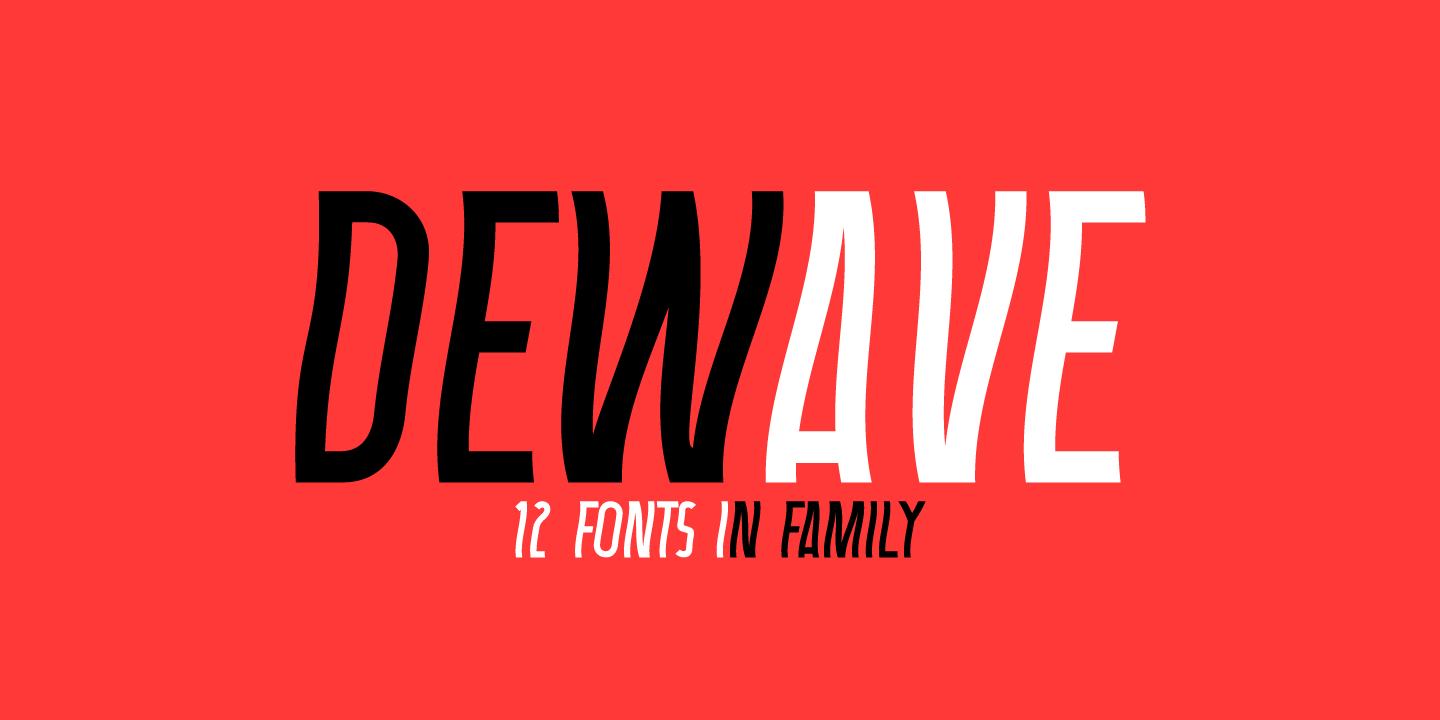
Dewave Font is perfect for electronic music festival branding, DJ booth signage, nightclub identity systems, audio production studios, synthesizer equipment marketing, electronic dance events, techno party promotions, and digital music platform interfaces.
Dewave Font is exciting because it captures the pulsating energy and rhythmic flow of electronic music through its dynamic character design that embodies the synthetic waves of digital soundscapes and the hypnotic patterns of electronic beats. Its electronic styling and rhythmic appeal make it the perfect choice for brands that want to communicate innovation, energy, and the transformative power of electronic music culture.
Dewave Font family includes multiple electronic variations: Dewave Light, Dewave Regular, Dewave Bold, Dewave Pulse, Dewave Beat, and Dewave Synth, along with electronic decorative elements and music symbols, providing designers with comprehensive tools for creating authentic electronic music and digital audio-themed brand experiences.
When exploring electronic music typography solutions, Dewave Font Free Download emerges as the definitive choice for designers working on electronic music and digital audio projects that require genuine electronic sophistication and rhythmic appeal. This pulsating typeface embodies the essence of electronic music culture while offering the technical precision that contemporary music production companies and electronic event organizers require. The font's digital character and electronic authenticity create immediate connections with audiences who appreciate electronic beats and synthesized soundscapes.
Electronic music professionals consistently choose Dewave Font for projects requiring authentic electronic sophistication and powerful rhythmic appeal. Its expertly engineered letterforms feature wave-inspired influences that work exceptionally well in both large-scale festival stage displays and intimate studio equipment packaging applications. The font's ability to convey electronic energy and digital innovation while maintaining strong brand recognition makes it invaluable for comprehensive identity systems in the electronic music, audio production, and digital entertainment sectors.
Whether you're developing electronic music festival identities, creating DJ service marketing materials, or designing audio equipment promotions, Dewave Font delivers the authentic electronic character and rhythmic appeal that resonates with audiences who embrace electronic music culture and digital audio innovation. Its electronic significance and dynamic design ensure your projects capture the pulsating energy of electronic waves while maintaining contemporary professional standards that attract modern electronic music enthusiasts and digital audio professionals.